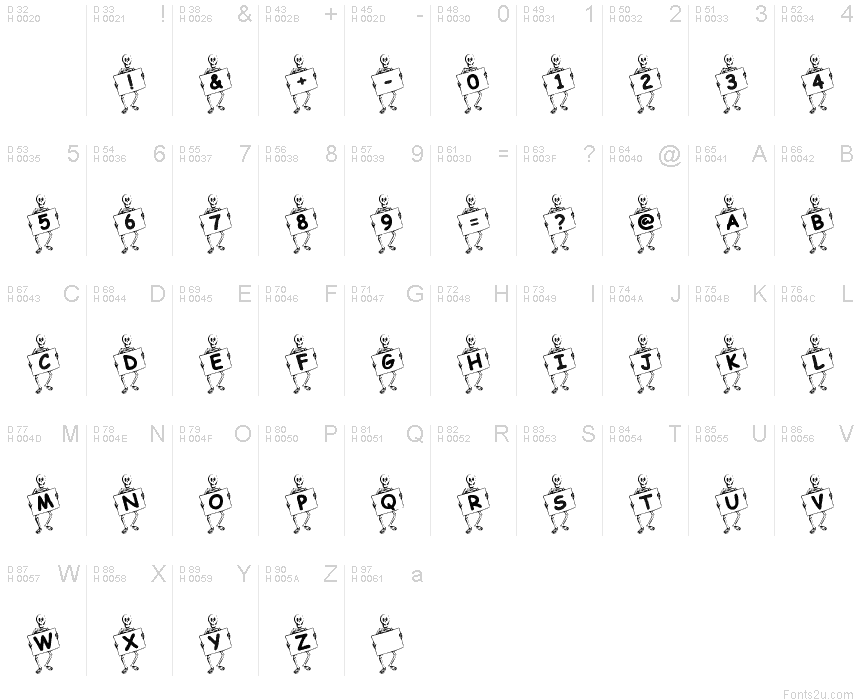
Summer's Hallo 1, created by SummerNytz of FUNware, is a free Halloween dingbat font built from loose, hand-drawn skeleton illustrations. The lettering is folded into lanky skeleton artwork with uneven inked contours and goofy graveyard humor.
Halloween themes make it especially apt for party invitations, haunted-house posters, and seasonal merchandise, where the bony figure can function as both type and illustration. It also gives candy packaging or novelty-shop branding a ready-made skeletal mascot for seasonal campaigns, with a rough comic-book edge.
Summer's Hallo 1